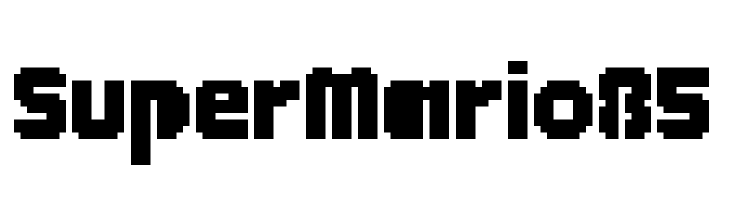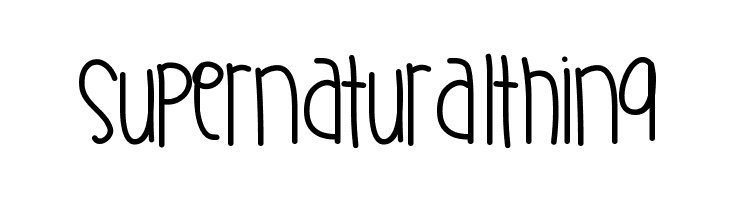
( Lara Russell )
A playful, handwritten font with bold, rounded letters and a casual style.
( Fonts by Pizzadude )
A bold, rounded font with a playful and friendly style.
( Fonts by Kimberly Geswein - kimberlygeswein.com )
A fluid and dynamic handwritten-style font with a personal touch.
( Colorful Typhoon - www.geocities.jp/kitschlabo/ )
A bold, playful handwritten font with rounded edges and consistent strokes.
( Fonts by Heather T. - oohlalaartsy.blogspot.com )
A playful and whimsical font with unique, quirky letterforms.
( Colorful Typhoon - www.geocities.jp/kitschlabo/ )
A playful, hand-drawn font with an informal and approachable style.
( Fonts by Steve Ferrera )
A bold, condensed, and modern geometric font ideal for headlines.
( Fonts by Holydie Studio )
A playful, bold font with rounded, thick strokes and a whimsical style.